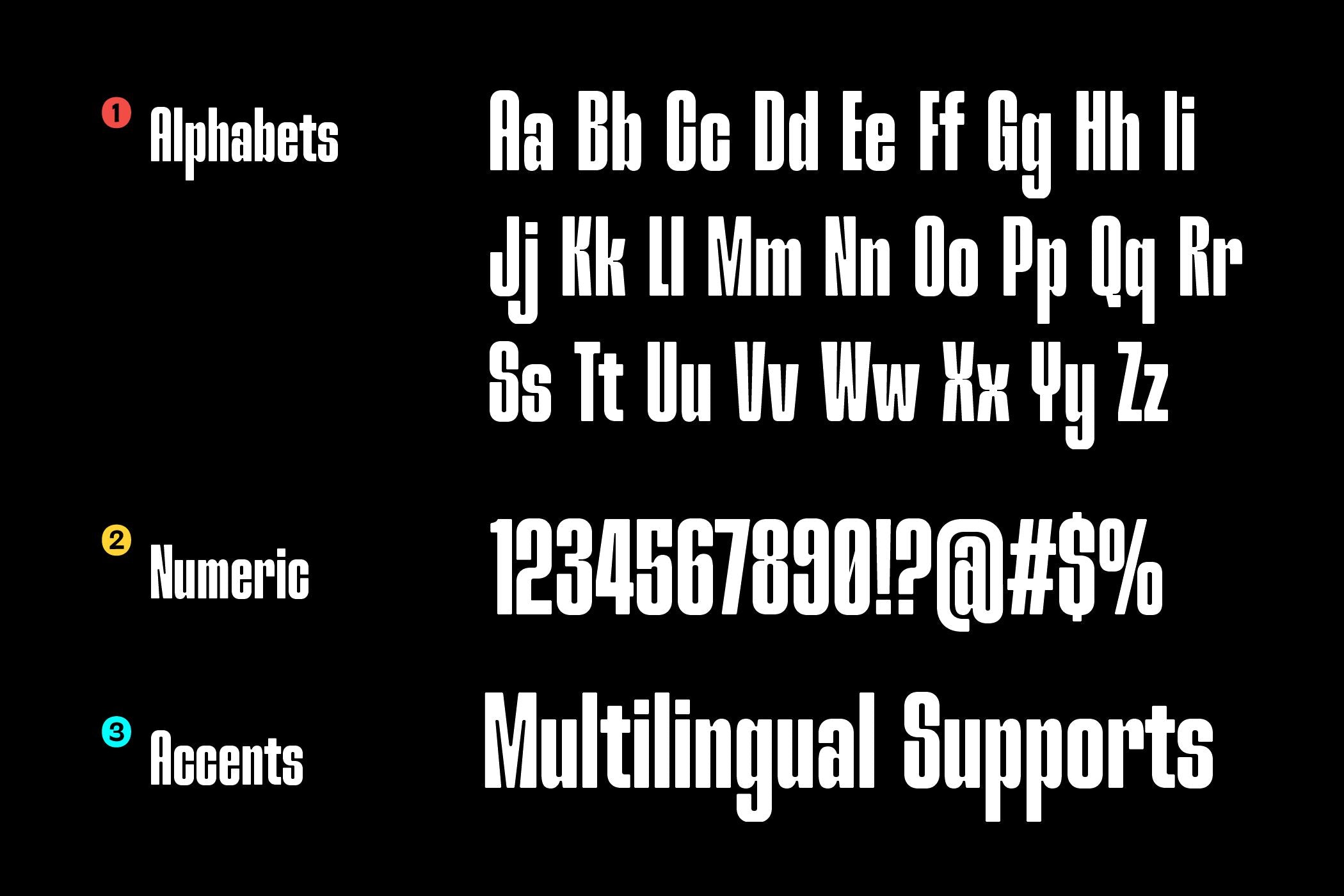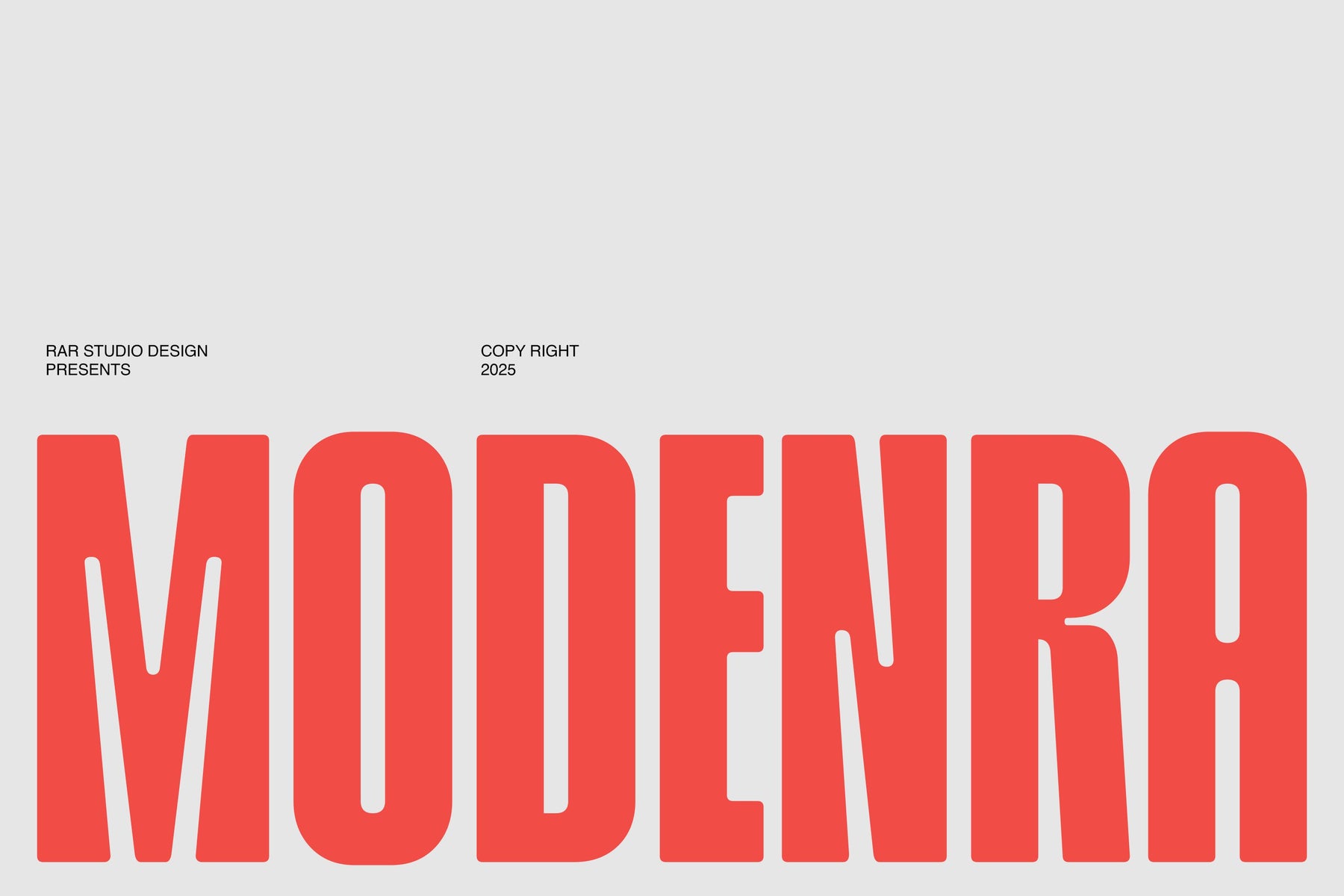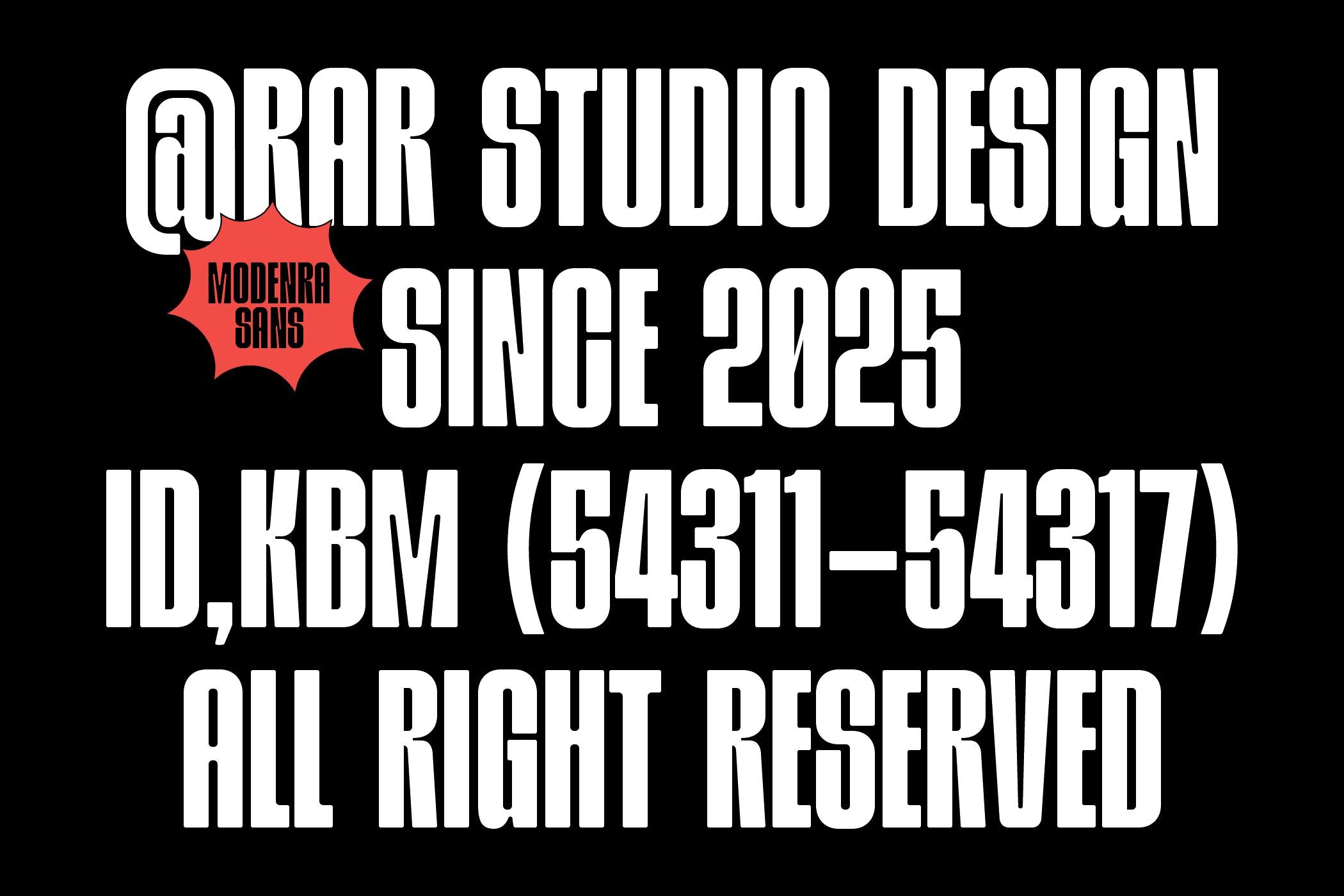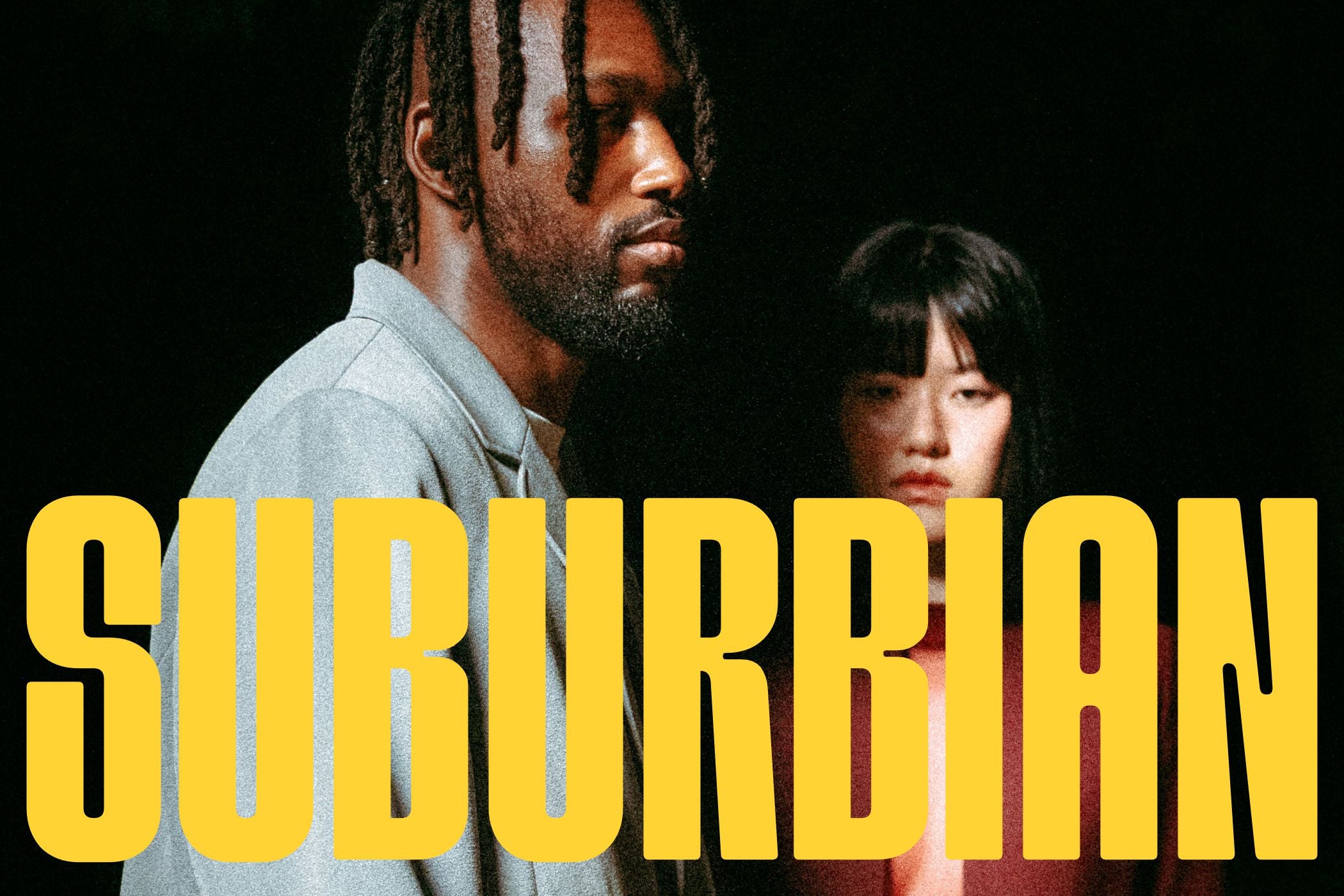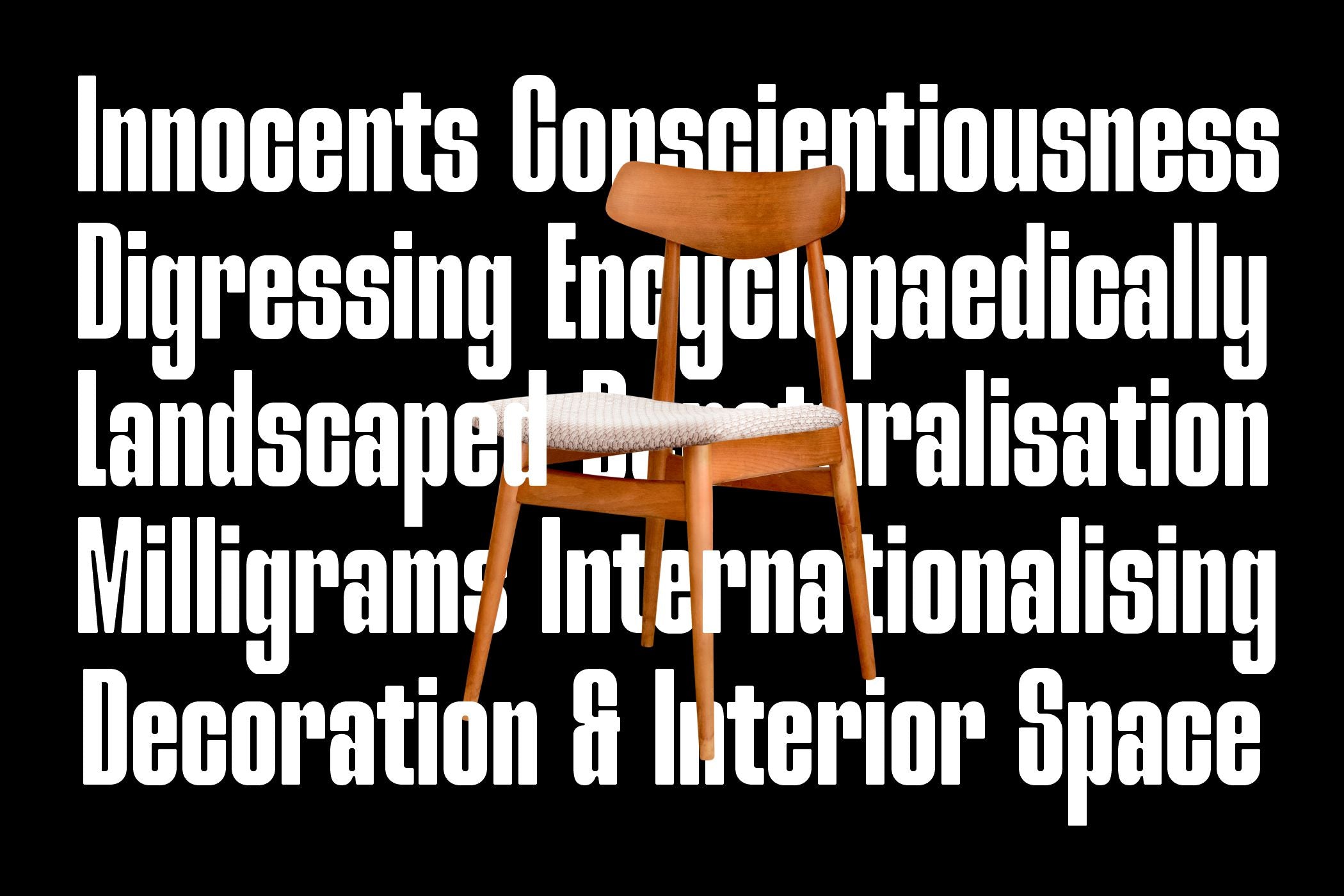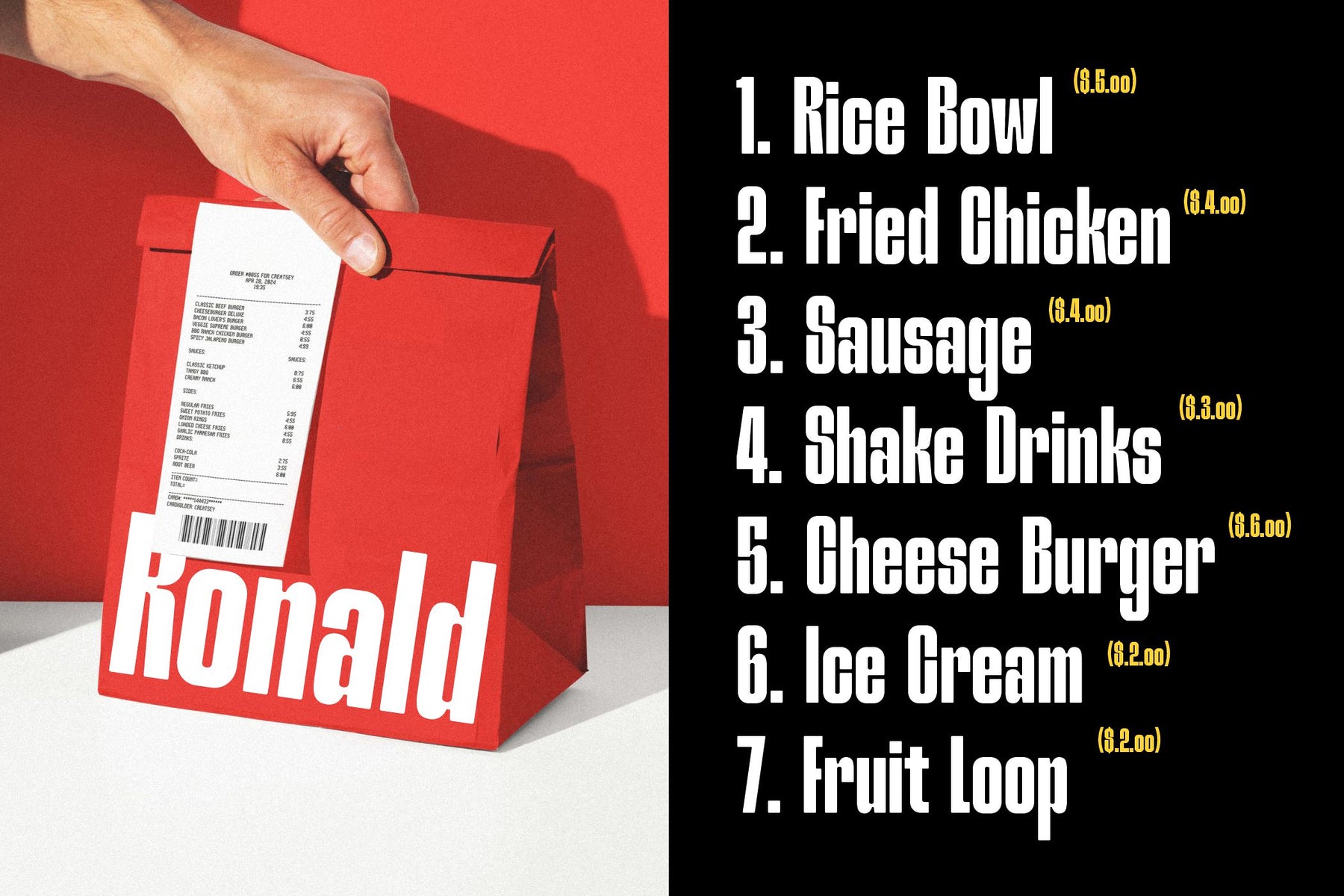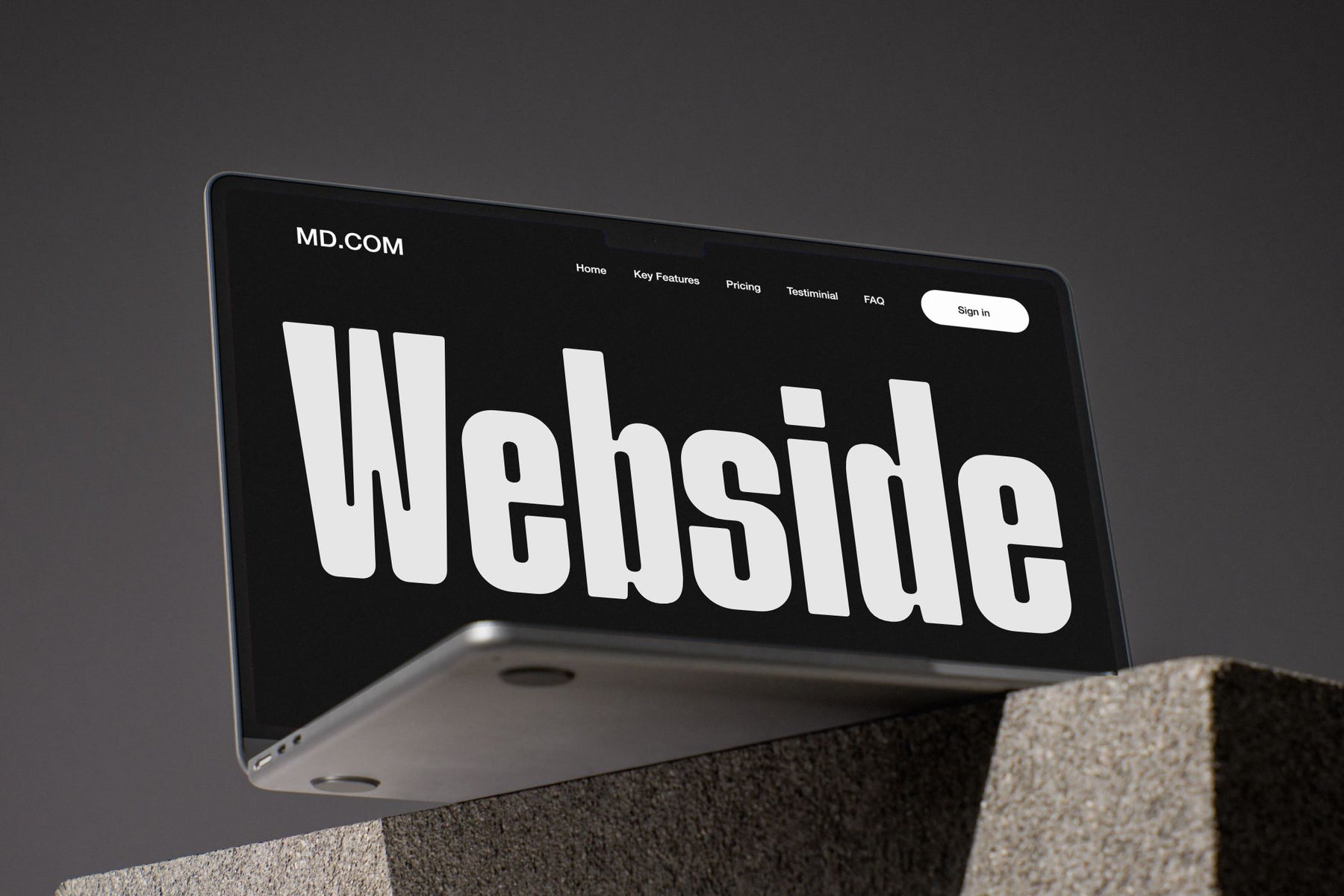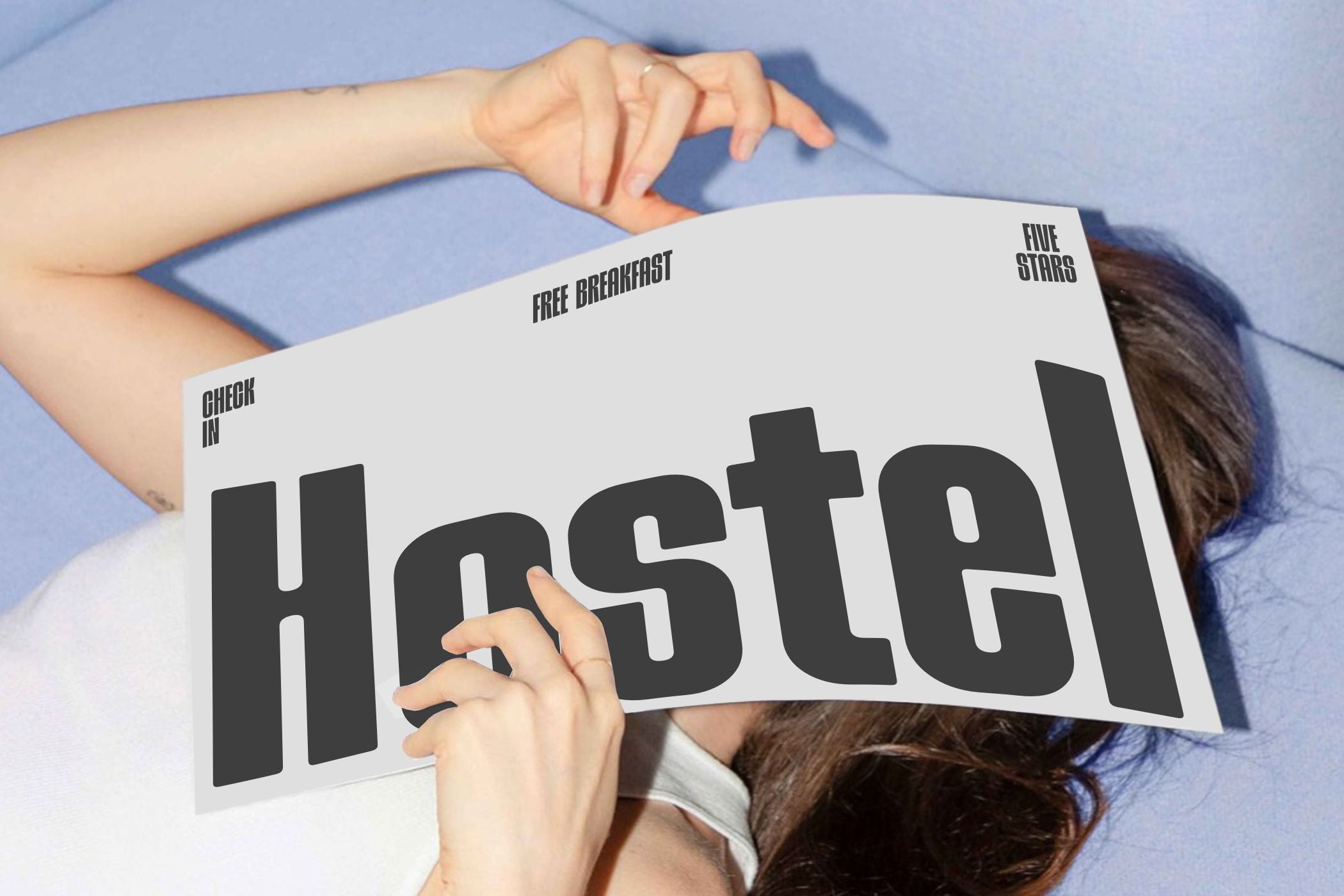
Modenra Condensed Typeface
Modenra created by Rar Typeworks is a bold, ultra-condensed display typeface crafted for maximum visual impact. Featuring towering letterforms, tight spacing, and smooth geometric curves, Modenra commands attention in any layout. Its clean modern shapes paired with strong vertical presence make it ideal for headlines, posters, branding, and contemporary editorial design.
Designed with precision and confidence, Modenra delivers a striking, energetic aesthetic that elevates bold statements and gives every message a powerful, modern edge.